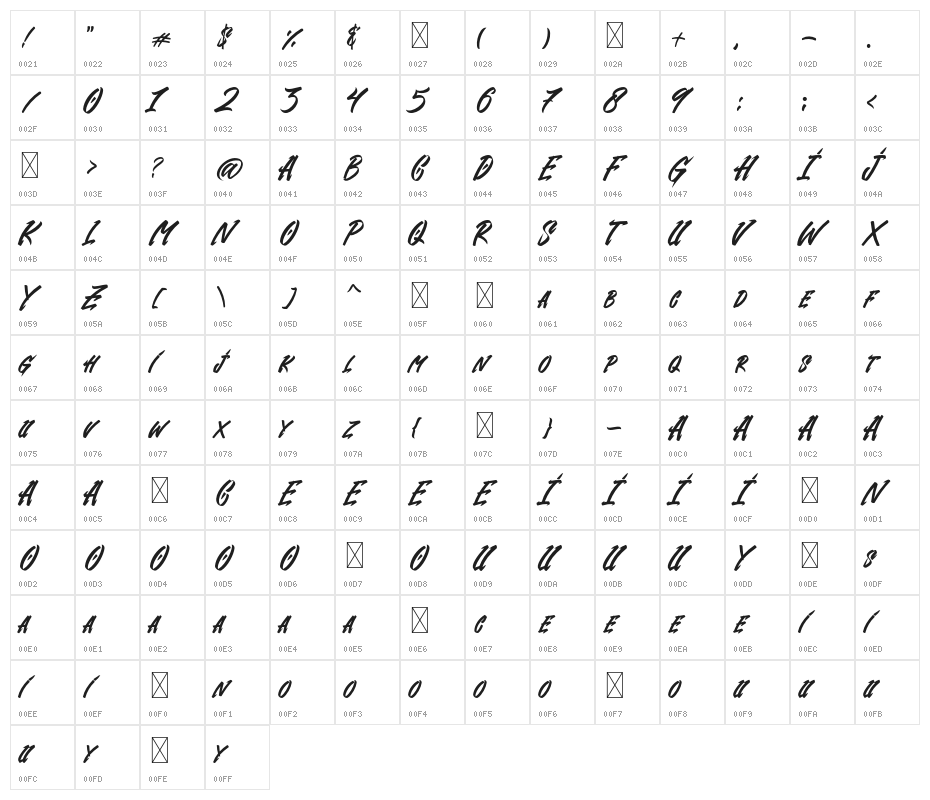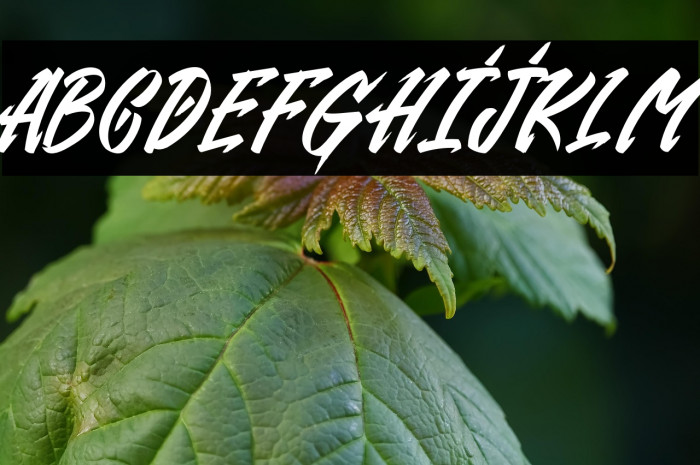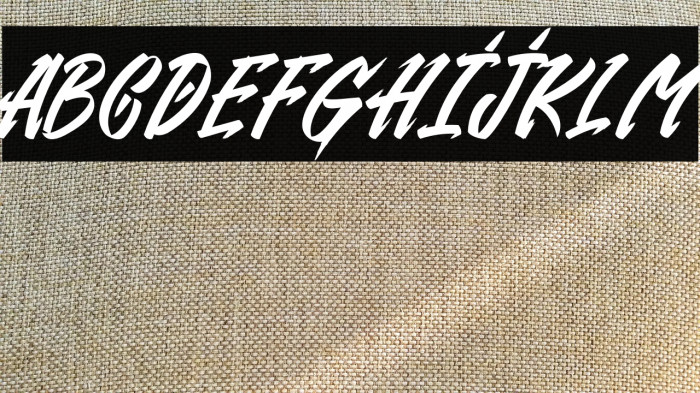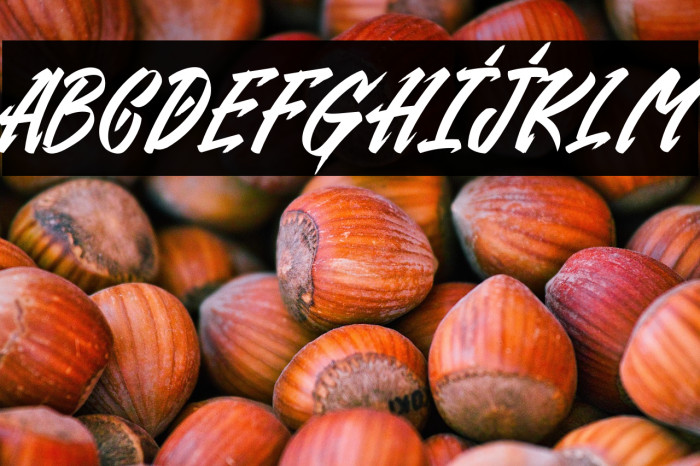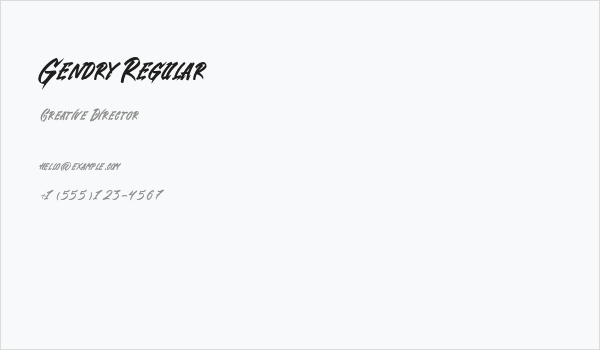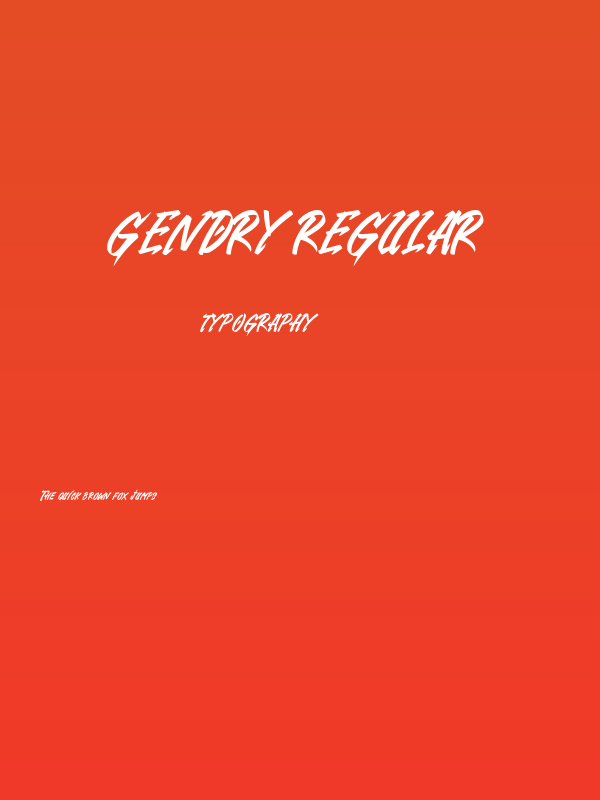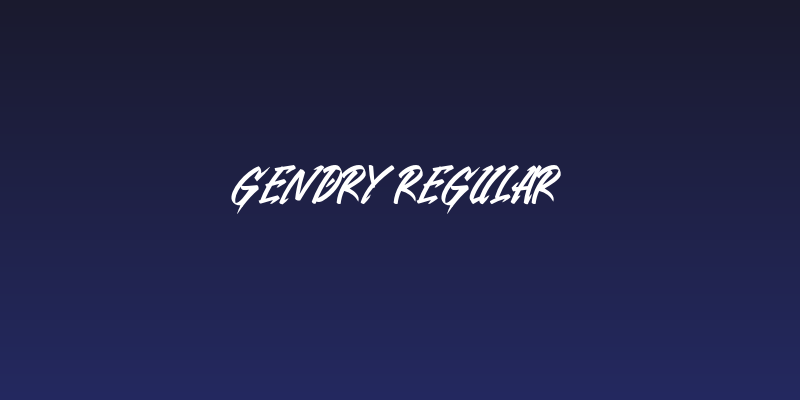
Gendry Regular Font
Gendry Regular Description
This font features a bold, dynamic script style with a strong, flowing appearance. The letters are slanted, giving a sense of movement and energy. The strokes are thick and consistent, with a high contrast between the thick and thin parts of the letters. The uppercase and lowercase letters maintain a cohesive style, with the uppercase being slightly more elaborate. The numbers and special characters are designed to match the overall aesthetic, ensuring a uniform look across all characters. This font is ideal for projects that require a bold and expressive touch.
| Proposed Projects | Ideal for branding, posters, and headlines that require a bold and expressive touch. |